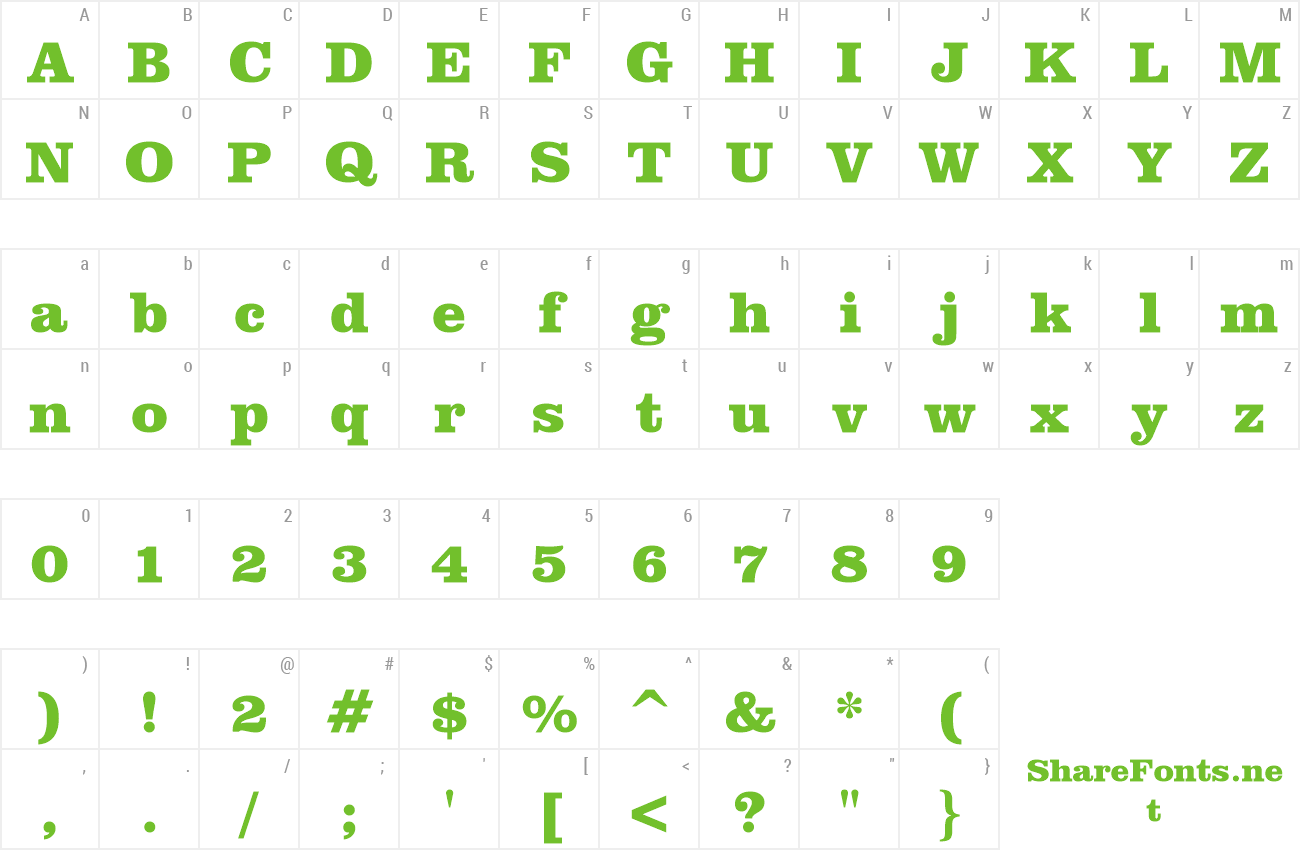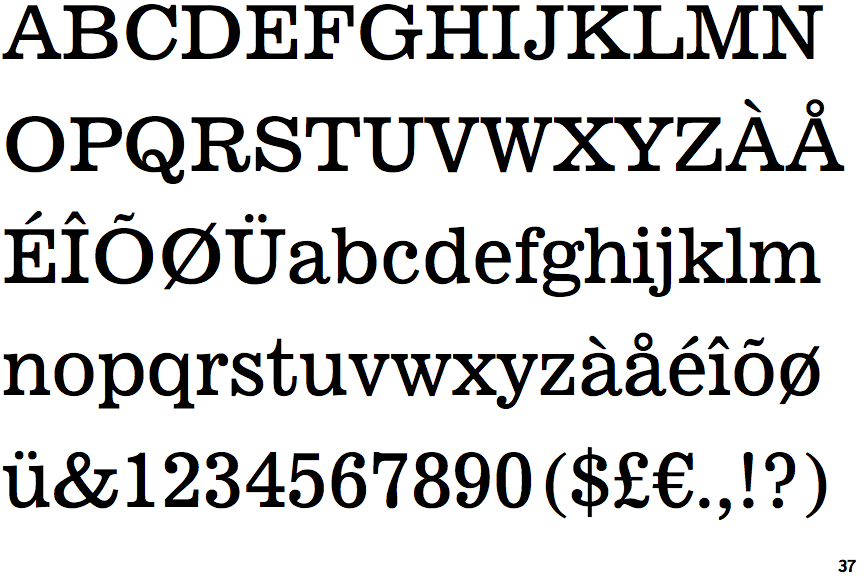
Clarendon Bt Font Free
Clarendon font has a bold and classic texture style that belongs to the slab serif font family. 0 users have given the font a rating of 0.0 out of 5. Download the clarendon condensed bt free font.
Like our facebook page to be notified of the new free premium fonts! Fontsplace is the best place to download clarendon bt bold for free. Clarendon text is a contemporary remake of the truly classic slab serif typeface with a distinctively clear and legible visibility.
You can find more information about clarendon lt bt light and it's character map in the sections below. Download clarendon bt heavy font by bitstream. It is a widely usable text type suited for distinction and style without sacrificing readability.
It was originally engraved by punchcutter benjamin fox, who may also have contributed to its design. Please, talk with the author for commercial use or for any support. Download free and premium fonts.
Download a font from the clarendon family. This typeface was created with larger text displays in mind. These attributes give clarendon bt a timeless appearance for a wide range of contemporary uses from websites, ads, publications and.